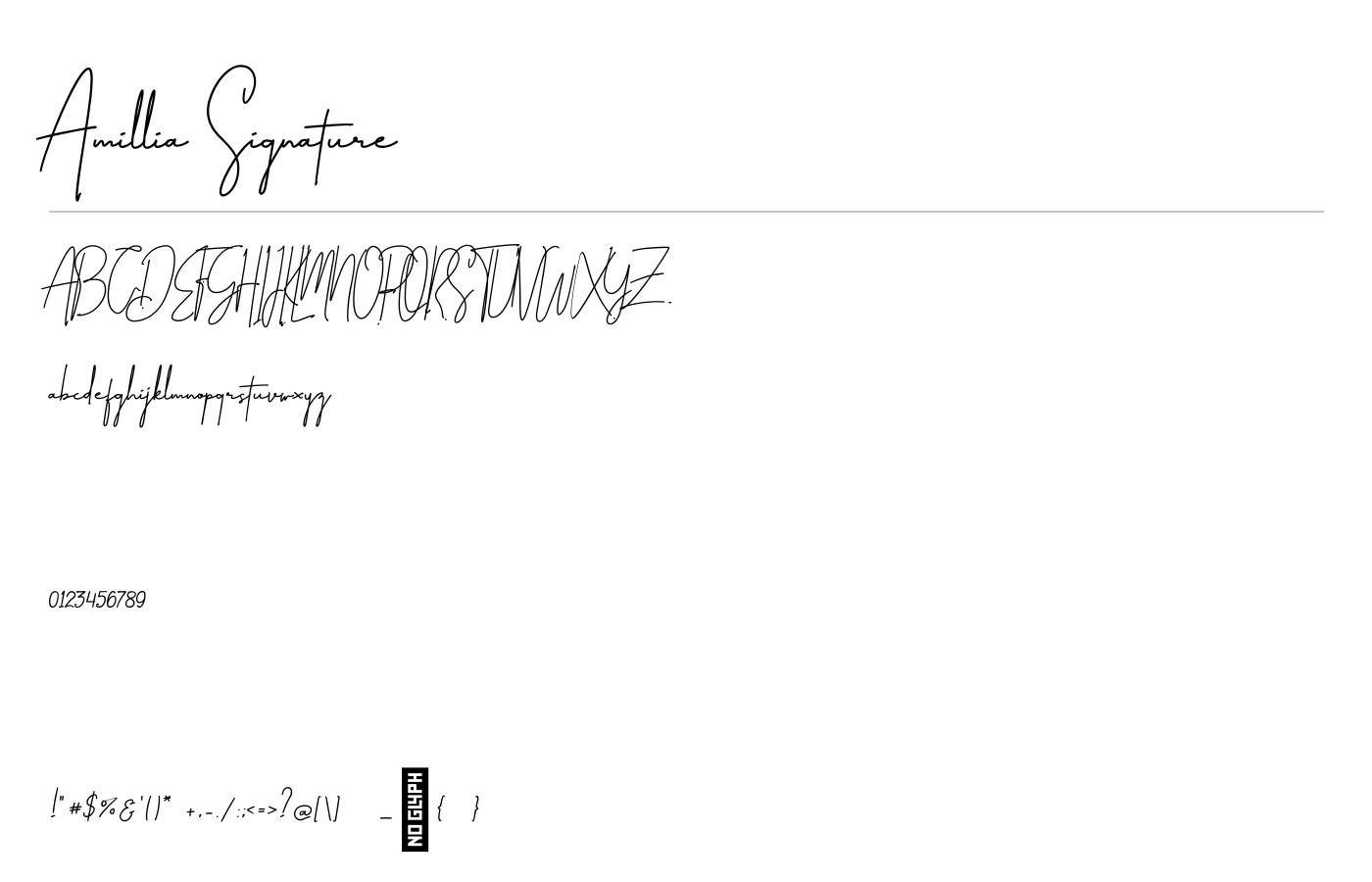
Amillia Signature is a delicate, elegant script font that mimics natural handwriting with its tall, slender letterforms and fine, flowing strokes. Its light weight and airy spacing give it a sophisticated and personal feel, making it perfect for branding, invitations, and fashion-related design where a touch of refinement and individuality is desired. This font works best in display settings such as logos, headlines, and signatures, where its unique, handwritten charm can truly stand out.
Amillia Signature Font
About Amillia Signature Font